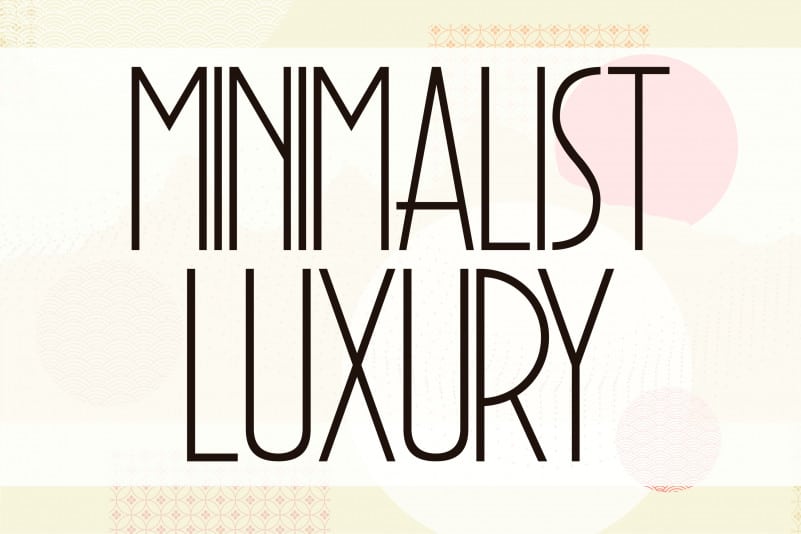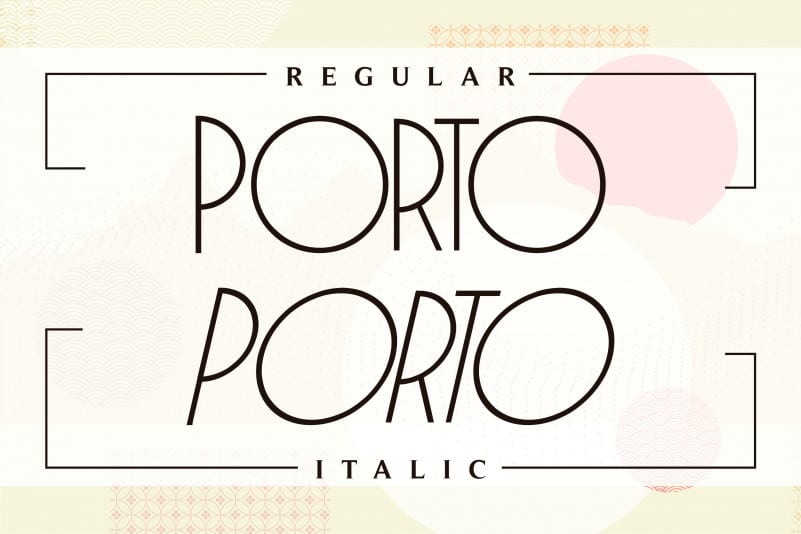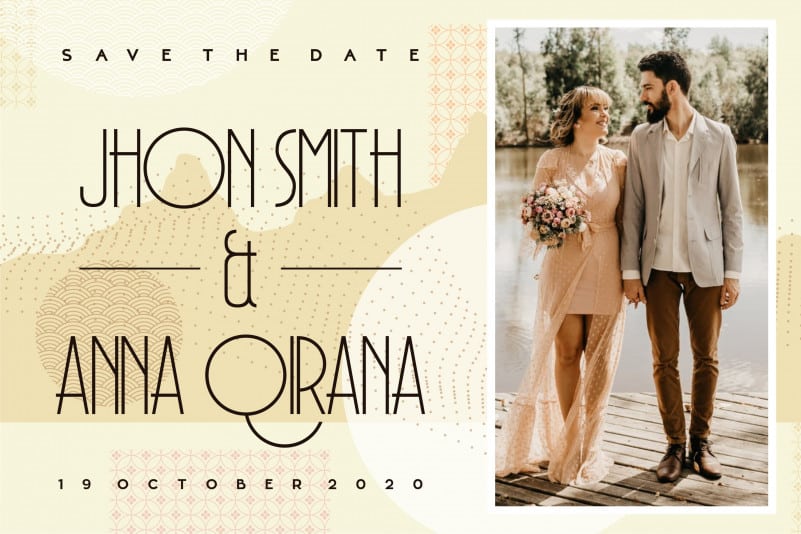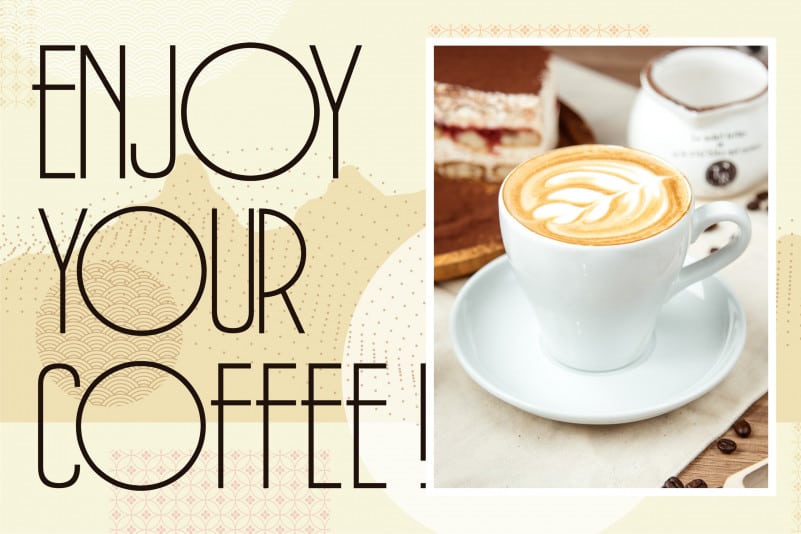
Porto Display Font
Porto Display Font is a modern and wide lettered sans serif font. It has a clean, thin and smooth vibe and it will be a hit for any design that you want to add it to.